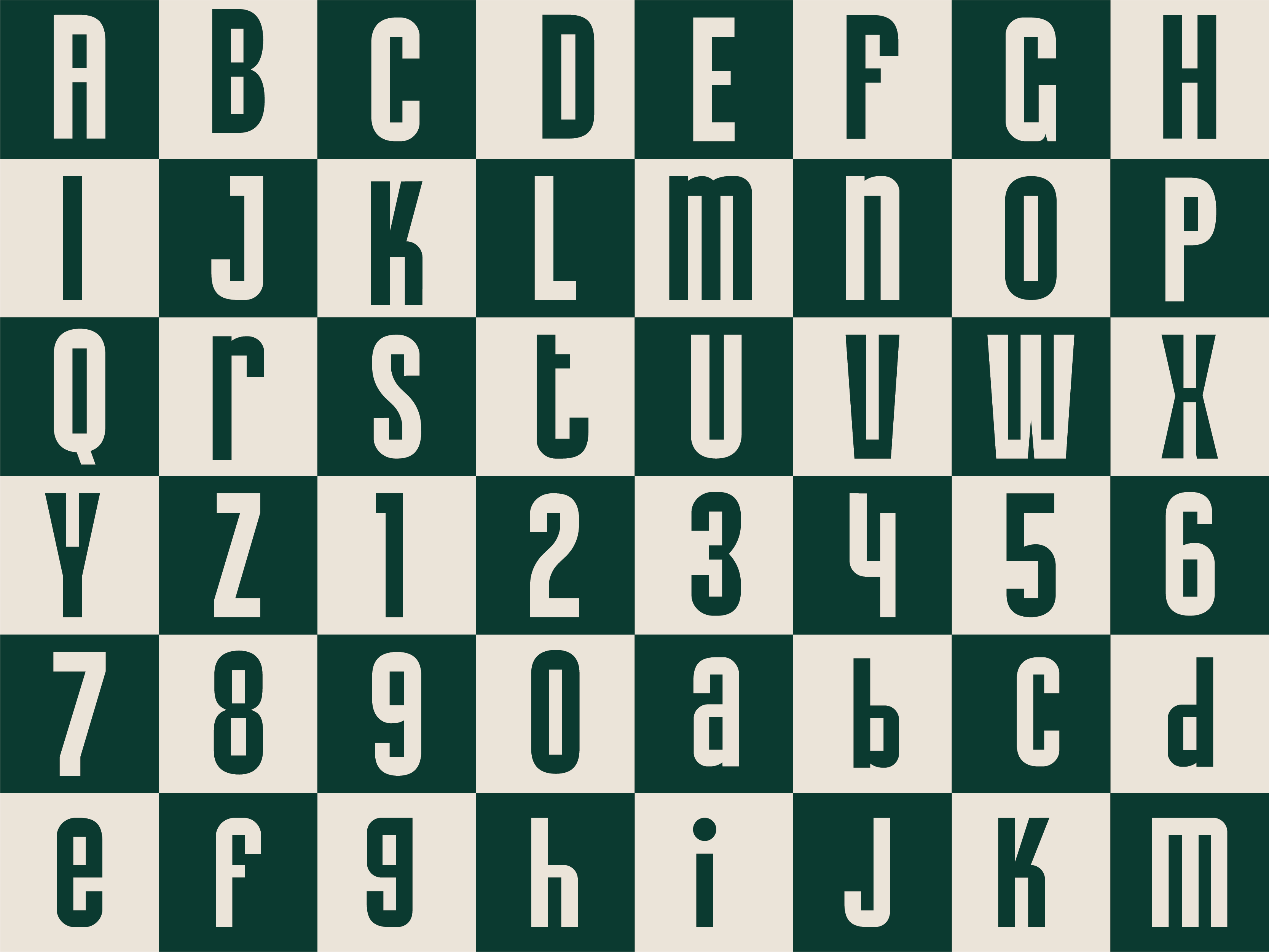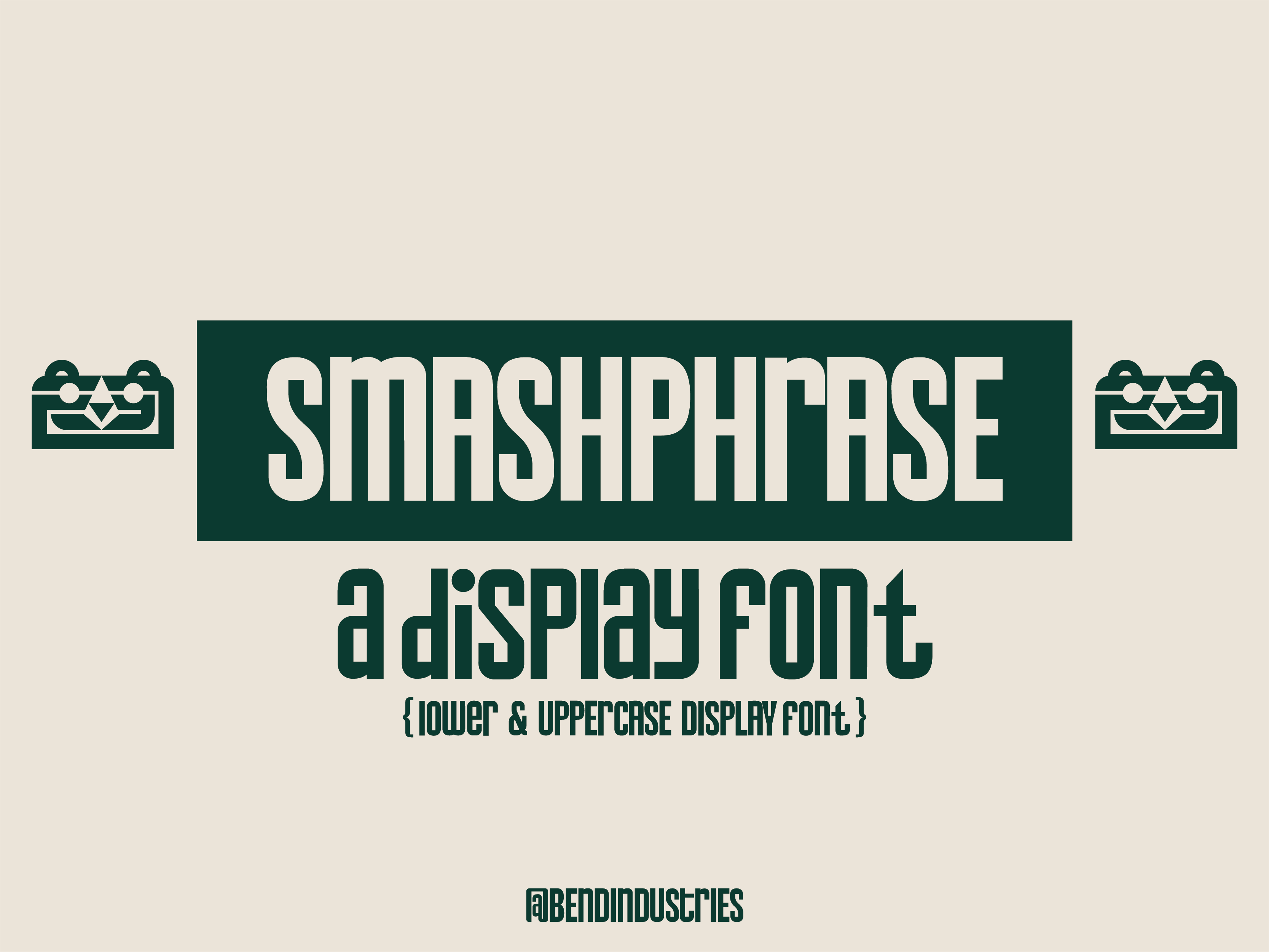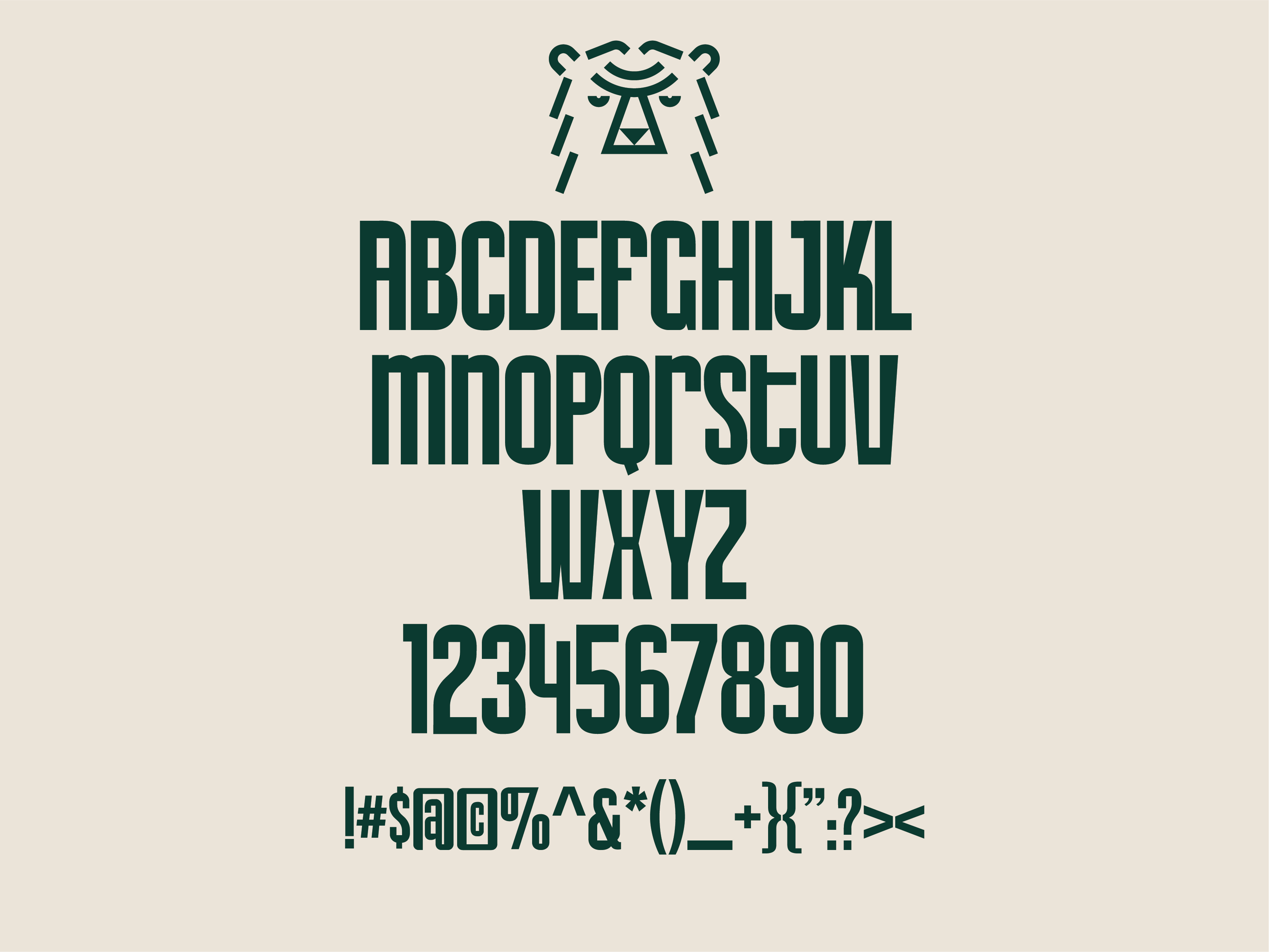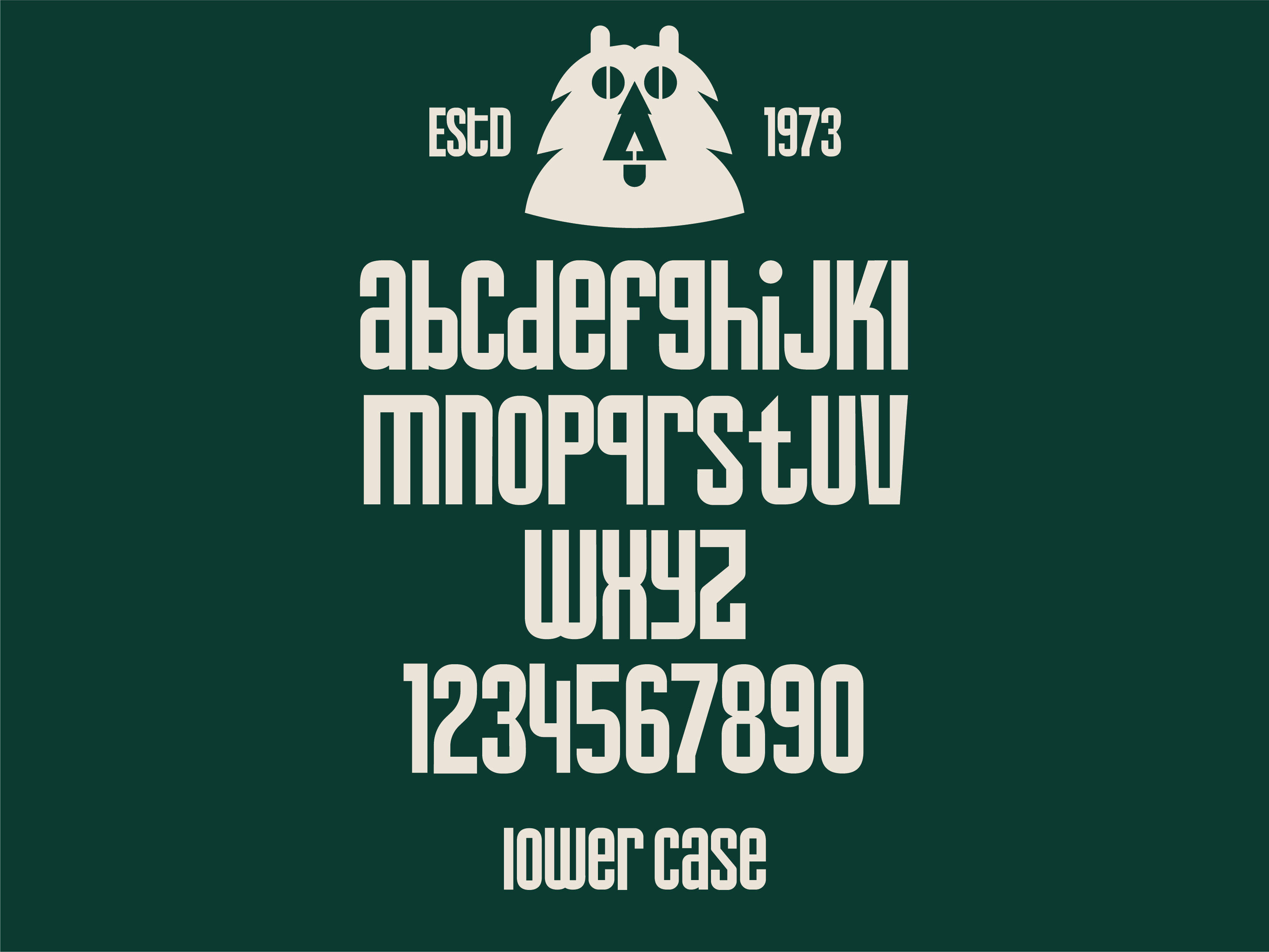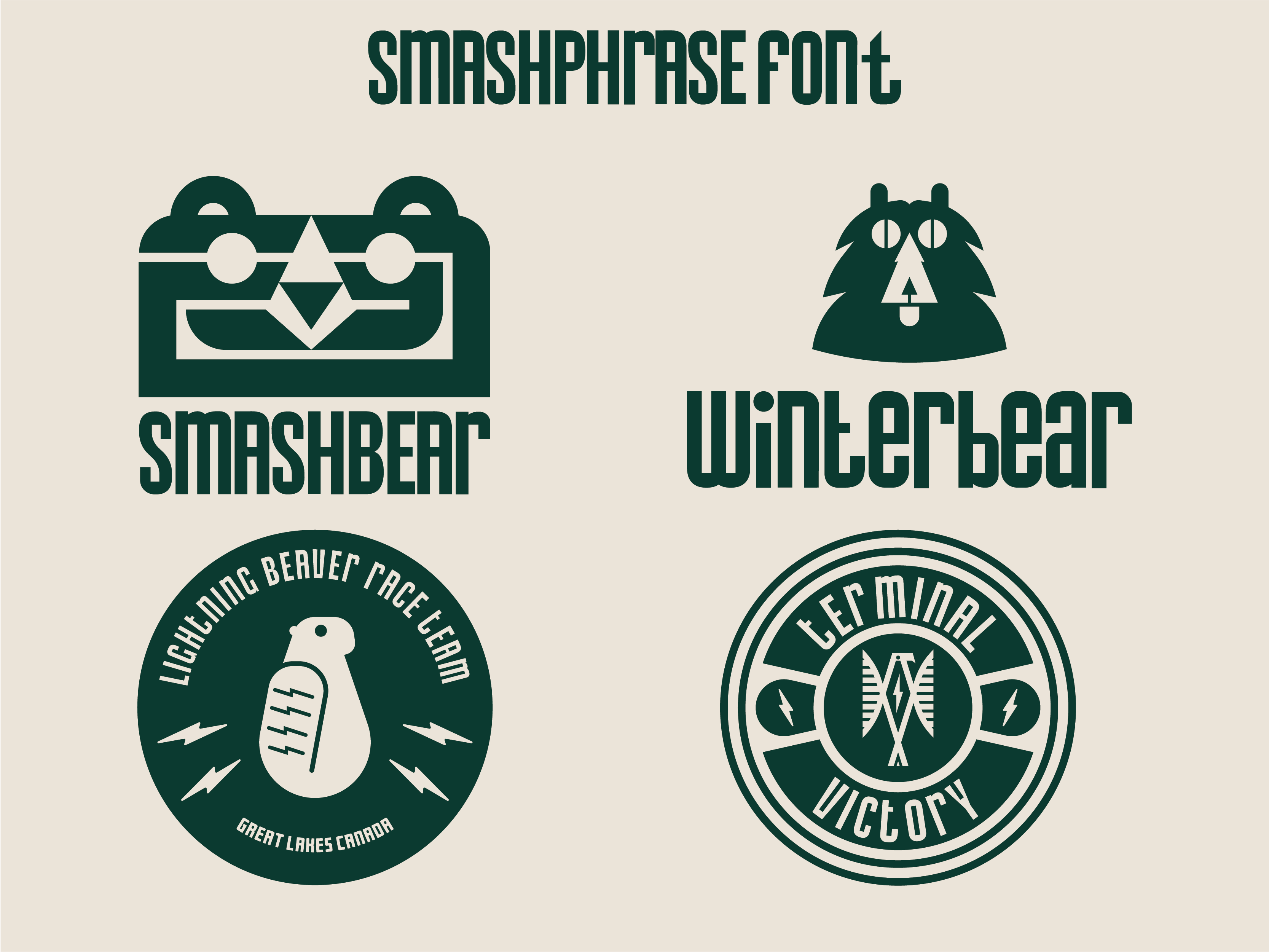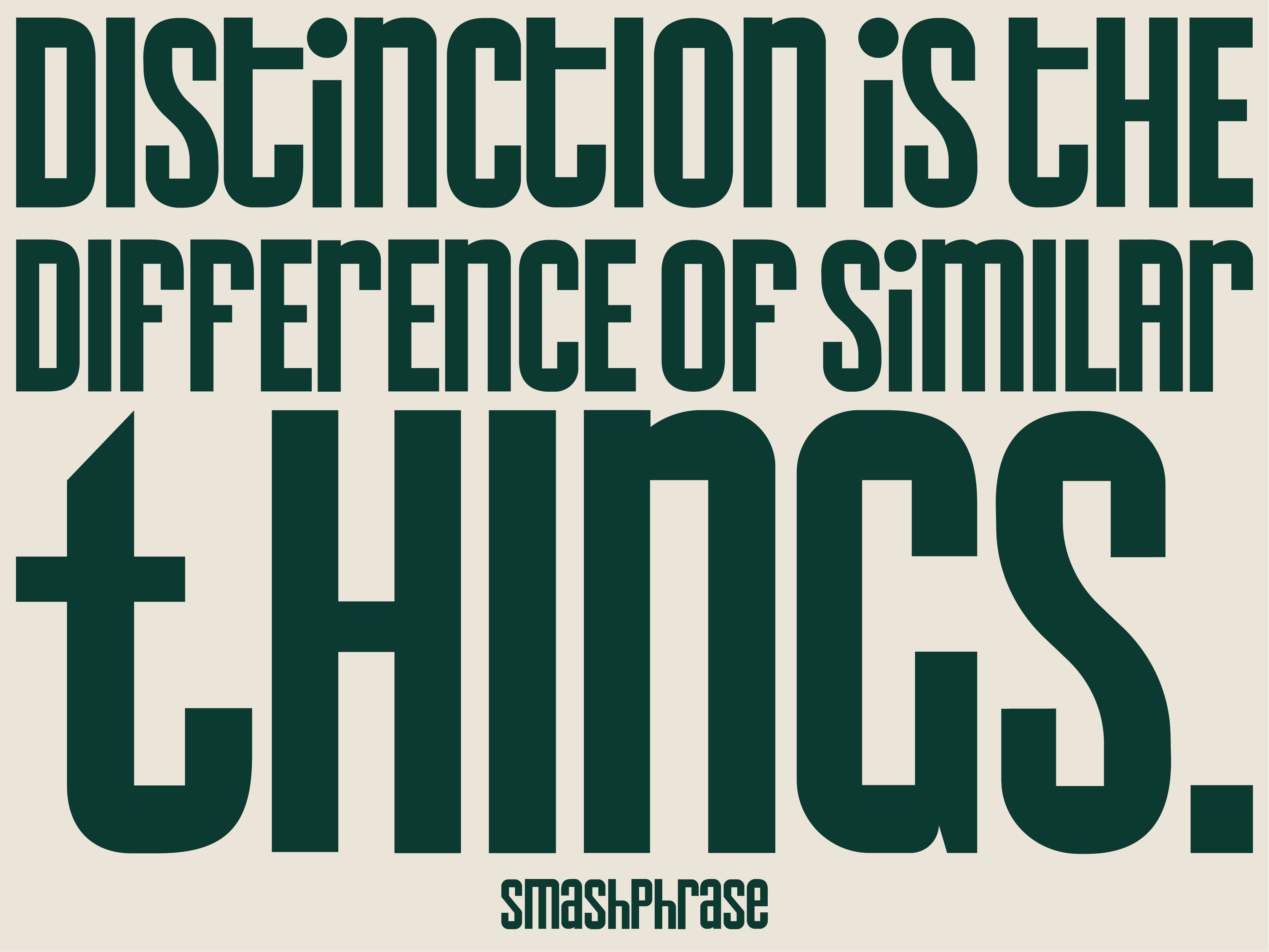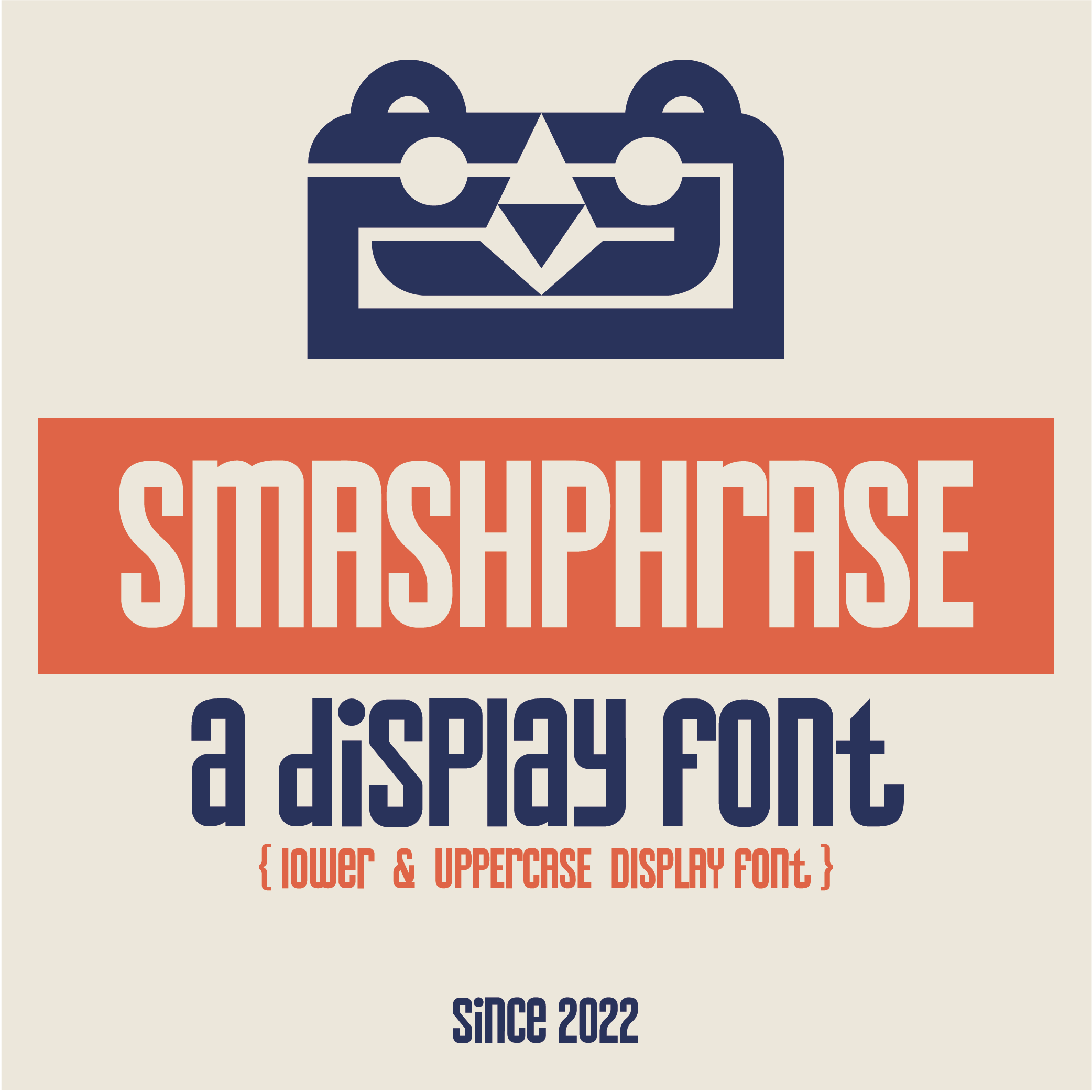
Smashphrase is a bold display font designed for strong visual impact. Featuring clean geometric shapes and both uppercase and lowercase characters, it’s ideal for logos, posters, branding, apparel, packaging, and editorial design. Its structured, retro-inspired forms give projects a confident, modern-industrial feel. Designed by Bend Industries in Seabrook, Texas, Smashphrase reflects our focus on distinctive, brand-driven typography.